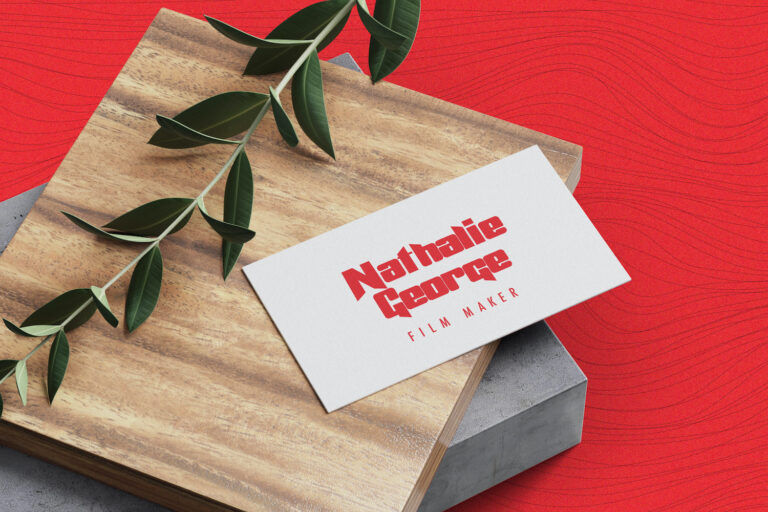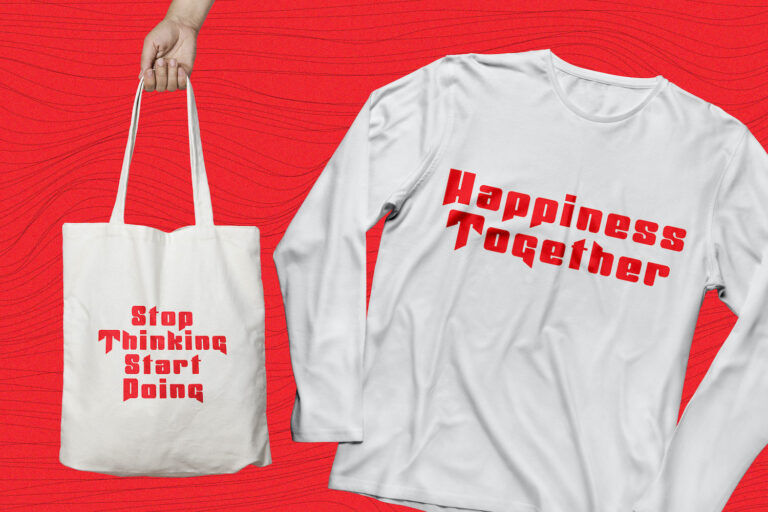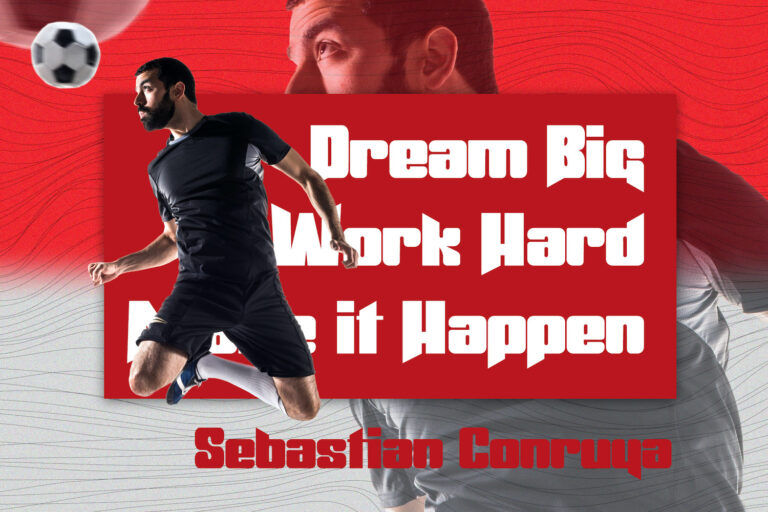
Jodaguz Display Sans Font is a bold and edgy typeface designed to make your words pop with confidence and character. Its angular cuts, squared forms, and geometric rhythm give it a distinctive voice—perfect for statements that demand attention. Jodaguz thrives in high-energy designs, whether you’re crafting sports posters, music covers, apparel graphics, or gaming titles. The font’s sharp, almost stencil-like construction adds a sense of movement and modern grit, making it ideal for youth-oriented branding or dynamic editorial layouts.
Despite its powerful presence, Jodaguz Display Sans Font remains surprisingly legible, with balanced proportions across upper and lowercase characters. It includes a complete set of punctuation and multilingual support, expanding its versatility. If your project calls for a striking headline or a bold identity with personality, Jodaguz brings just the right mix of impact and style to make your message stick.